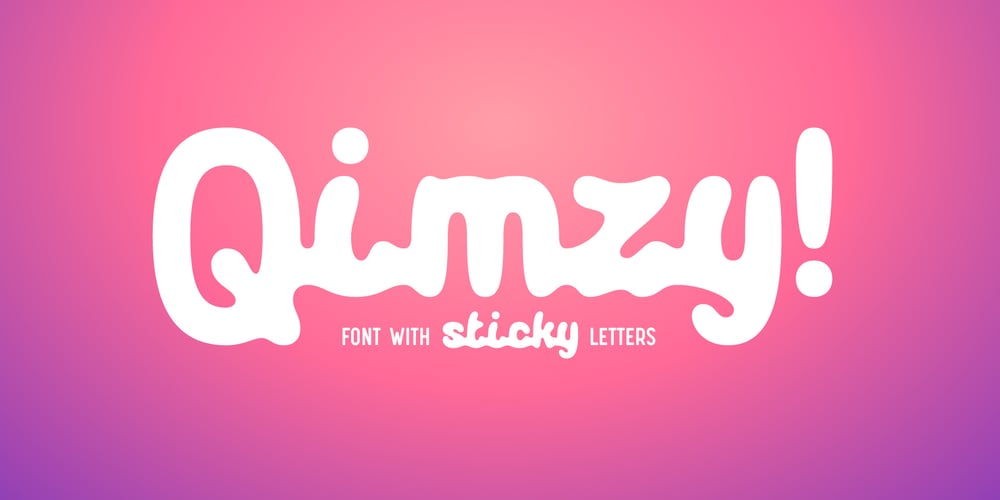
Qimzy Font Family was designed by Gleb Guralnyk and published by Gleb Guralnyk. Qimzy contains 1 styles and family package options. Hello! Introducing a decorative font — Qimzy. It’s a smooth shape bold typeface with seamless sticky effect. This font includes lots of multilingual characters (check out a screenshot with available letters and signs).Thank you and wish you a peaceful sky!